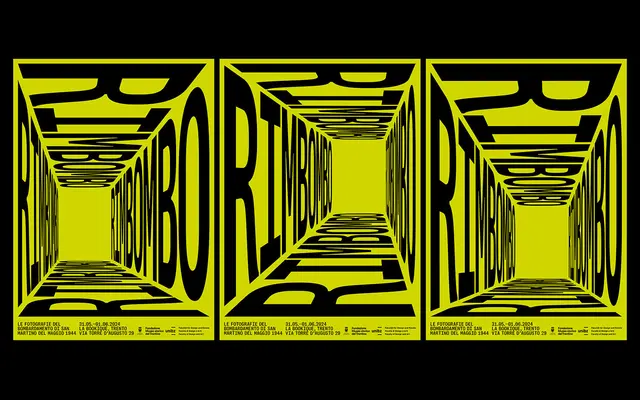
PP Right Grotesk Mono
Pangram Foundry · Alex Slobzheninov · 2023
PP Right Grotesk Mono specimen from Pangram Foundry
A 14-style monospace by Alex Slobzheninov, pairing Right Grotesk's voice with playful technical details.
Right Grotesk Mono is a 14-style monospace by Alex Slobzheninov, built as seven weights from Fine to Black with matching italics. Its compact proportions read well in paragraphs while staying recognisable at large sizes, giving it a friendly technological feel. It pairs cleanly with Right Grotesk and Right Serif Mono, and slots into the broader Right superfamily.
FineLightRegularMediumBoldDarkBlack